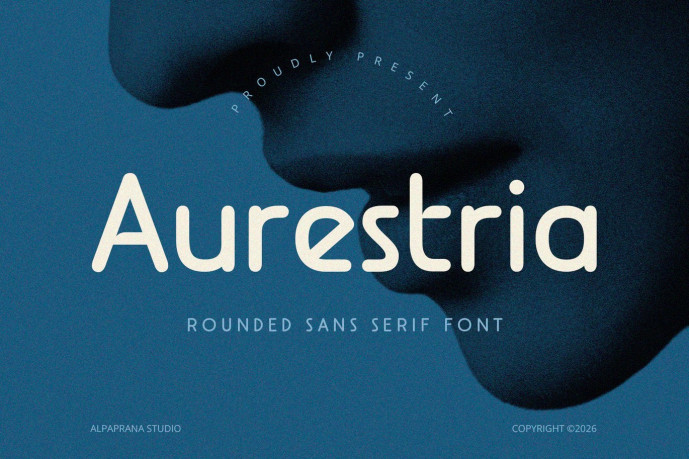
Aurestria is sans serif font with modern feels.
Features :
Uppercase & Lowercase
Numerals
Punctuations (OpenType Standard)
Accents (Multilingual Characters)
Ligatures and Alternative Style Stylistic Set